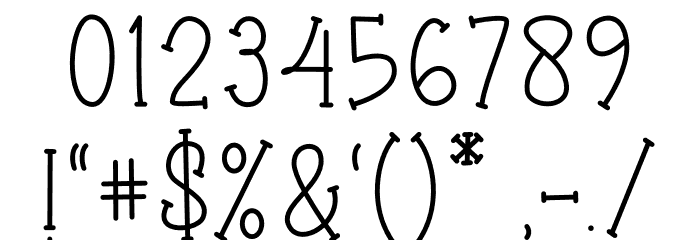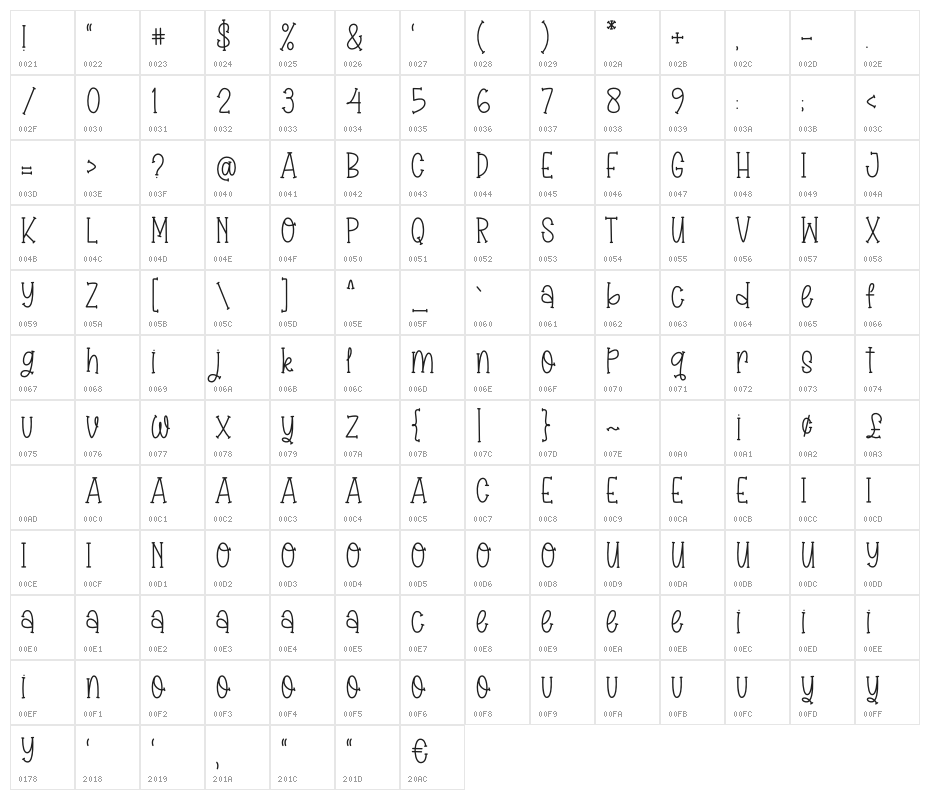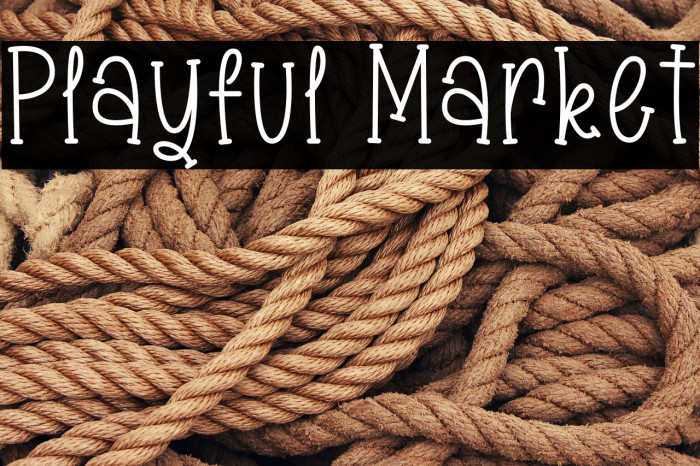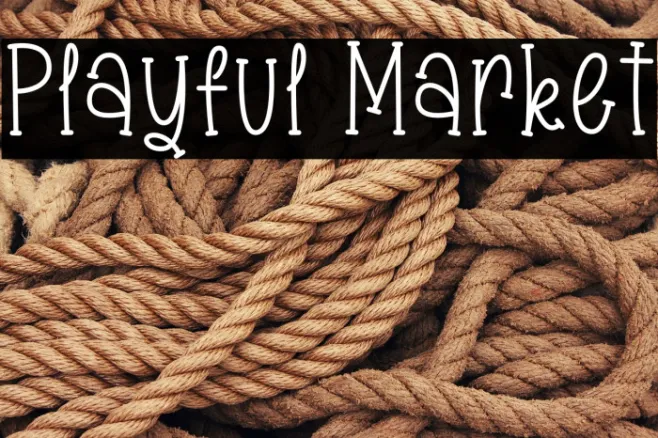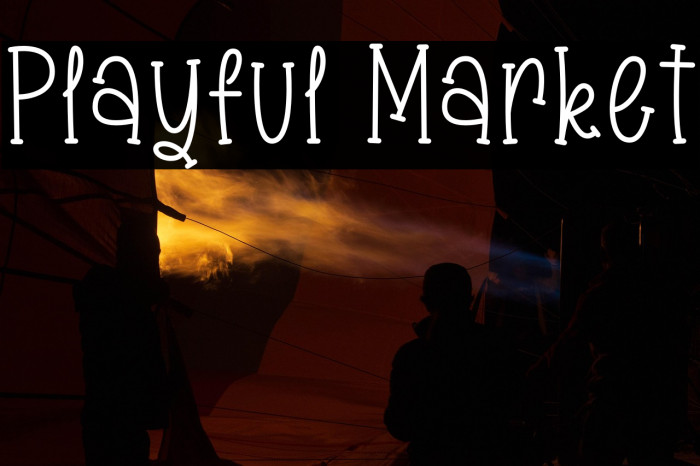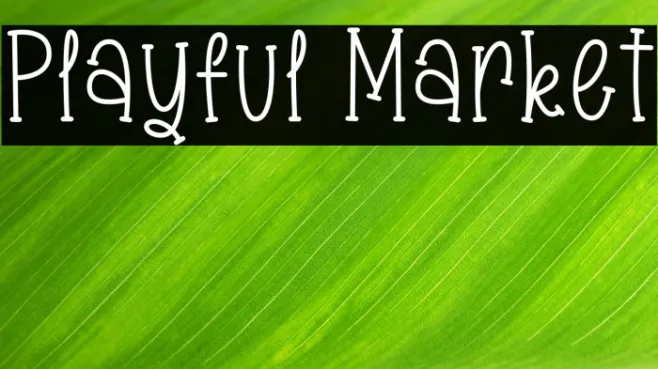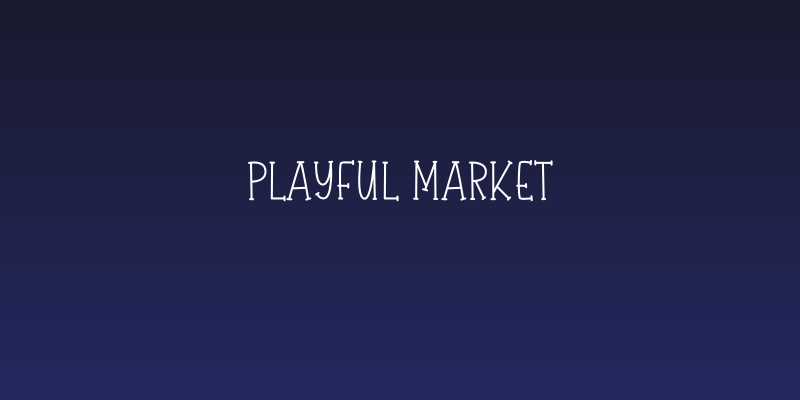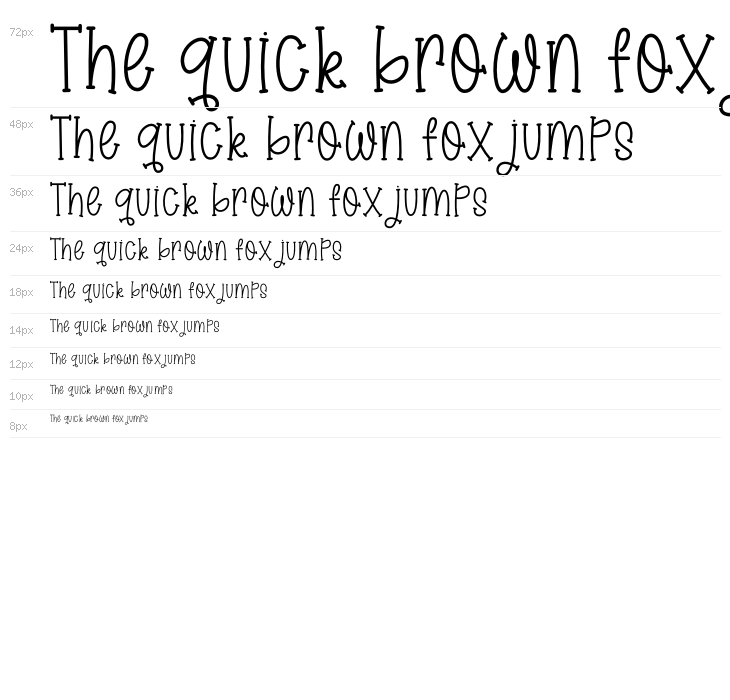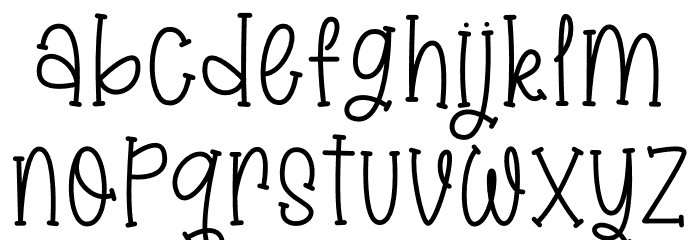
Playful Market Font
Playful Market Description
This font features a whimsical and playful style, characterized by its tall, narrow letters with a hand-drawn appearance. The strokes are consistent in width, giving it a uniform look while maintaining a casual and informal vibe. The uppercase letters are slightly taller than the lowercase, and the overall design includes quirky elements such as uneven baselines and slightly exaggerated curves. The numerals and special characters follow the same playful theme, making it suitable for creative and fun projects.
Overall StylePlayful
Proposed ProjectsIdeal for children's books, playful branding, greeting cards, and creative posters.